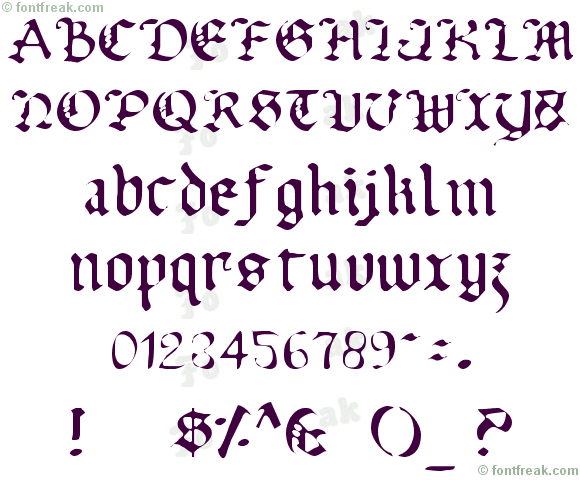
Uberhölme Light
Uberhölme Italic
Uberhölme Outline
Uberhölme Condensed
Uberhölme
Uberhölme Expanded
About Uberhölme
Uberhölme, designed by Iconian Fonts, is a striking display font that captures attention with its distinctive style. As a decorative typeface, it features a unique blend of bold strokes and intricate outlines, making it stand out in various design contexts. The font exhibits a moderate stroke weight, with a pleasing contrast that adds depth and character to each letterform. Its condensed and expanded versions offer versatility, allowing designers to choose the best fit for their projects.
Ideal for a range of creative applications, the Uberhölme font shines in settings such as wedding invitations, where its elegant flair can enhance the romantic atmosphere. It's also perfect for movie posters, adding a dramatic touch that draws the eye and evokes curiosity. Restaurant menus can benefit from its decorative nature, providing a stylish yet readable option that enhances the dining experience. Additionally, it works well in branding materials, helping small business owners convey a unique identity that resonates with their target audience.
What sets Uberhölme apart is its ability to combine artistic flair with functionality, providing a visually captivating option that elevates any project. Its distinctive character and versatile applications make it a must-have for anyone looking to make a memorable impression in their designs. Whether you're crafting a vintage-themed event or a modern branding solution, Uberhölme offers a unique solution that will leave a lasting impact.